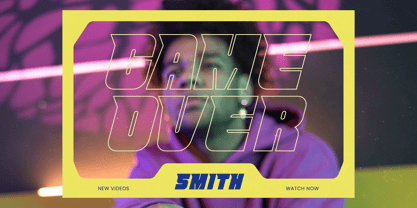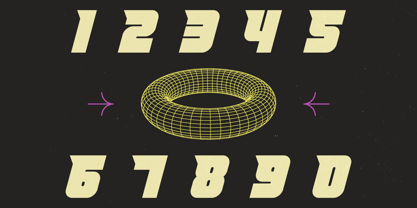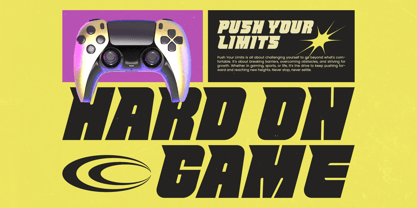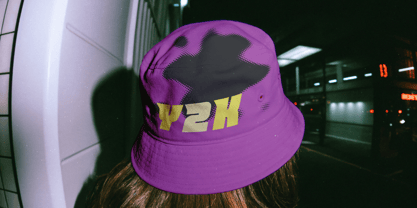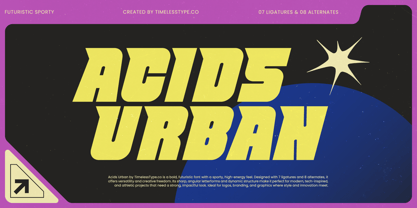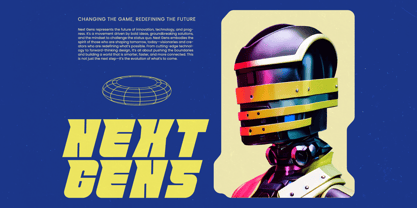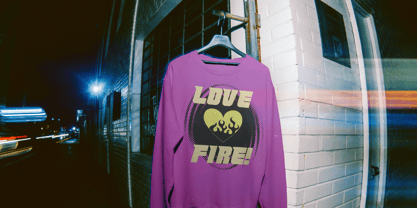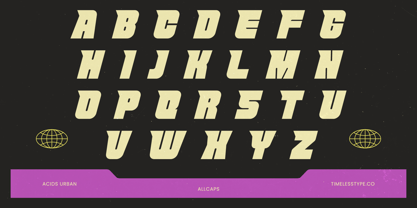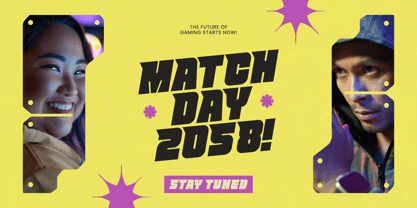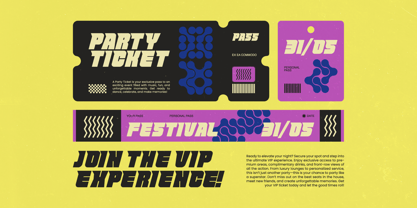
Acids Urban
Acids Urban is a bold futuristic display font Sans Serif built for high-energy visuals, modern branding, and athletic-inspired graphics. Its angular shapes, sharp cuts, and dynamic structure deliver a fast, powerful aesthetic that instantly commands attention. With 7 ligatures and 8 alternates, this font gives designers flexibility and edge, making it ideal for tech projects, esports branding, sporty posters, streetwear visuals, and anything that demands a strong, impactful presence.